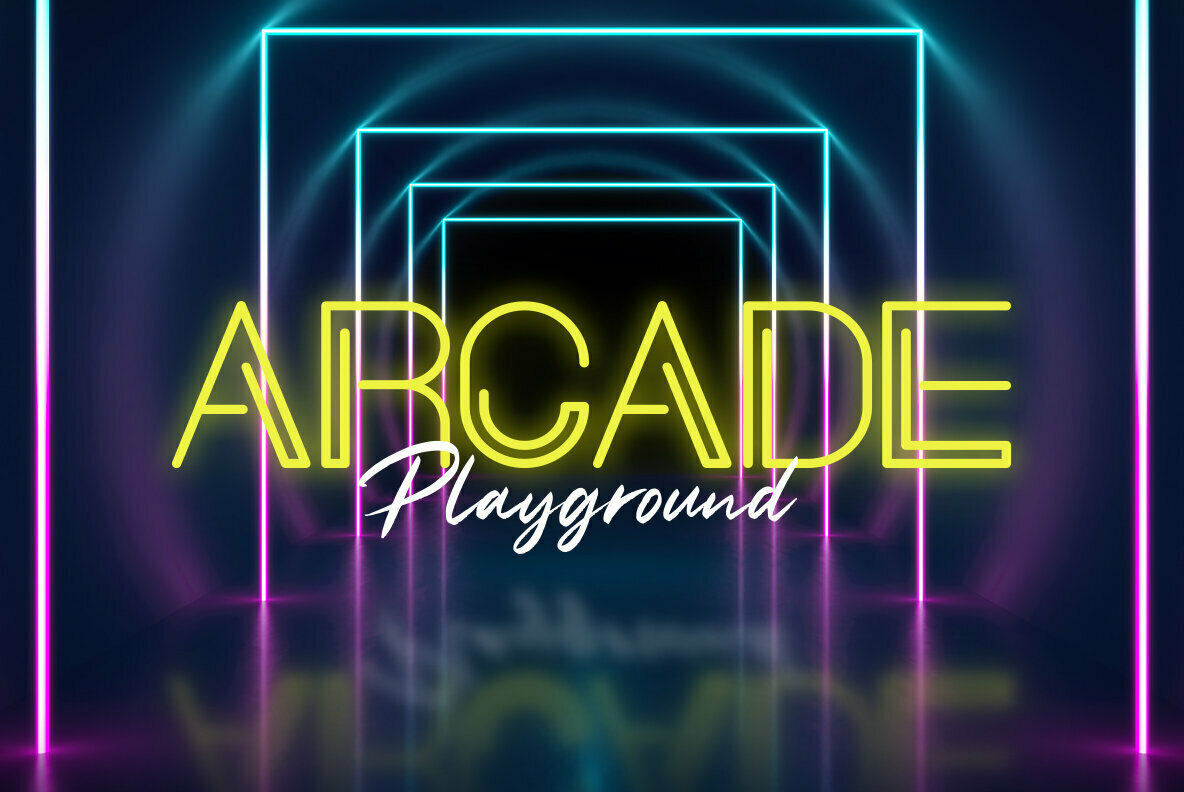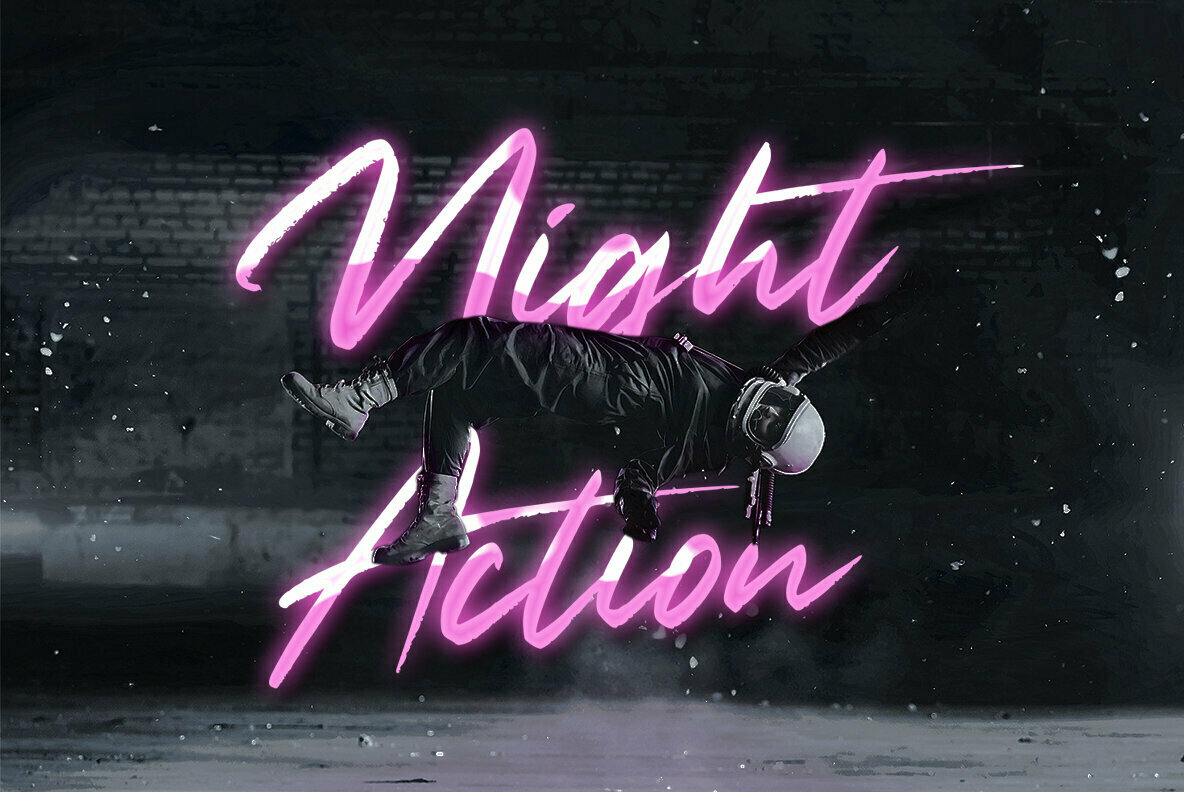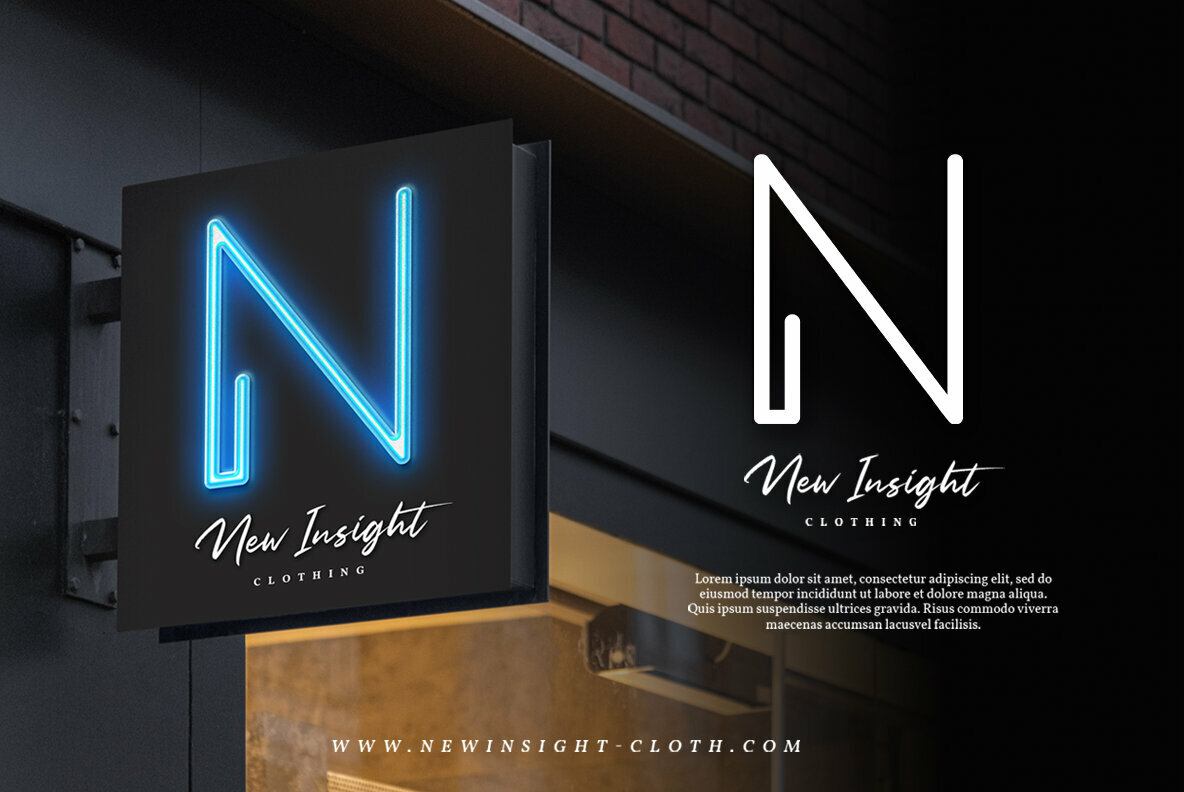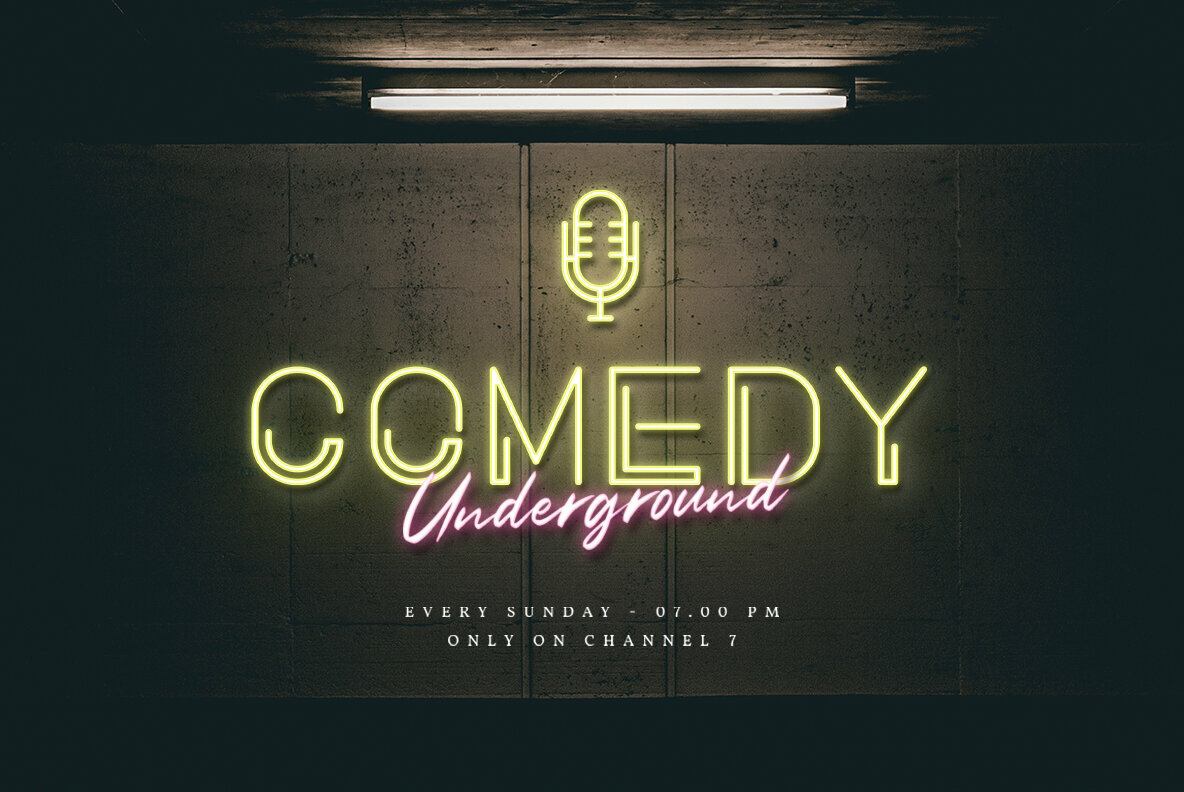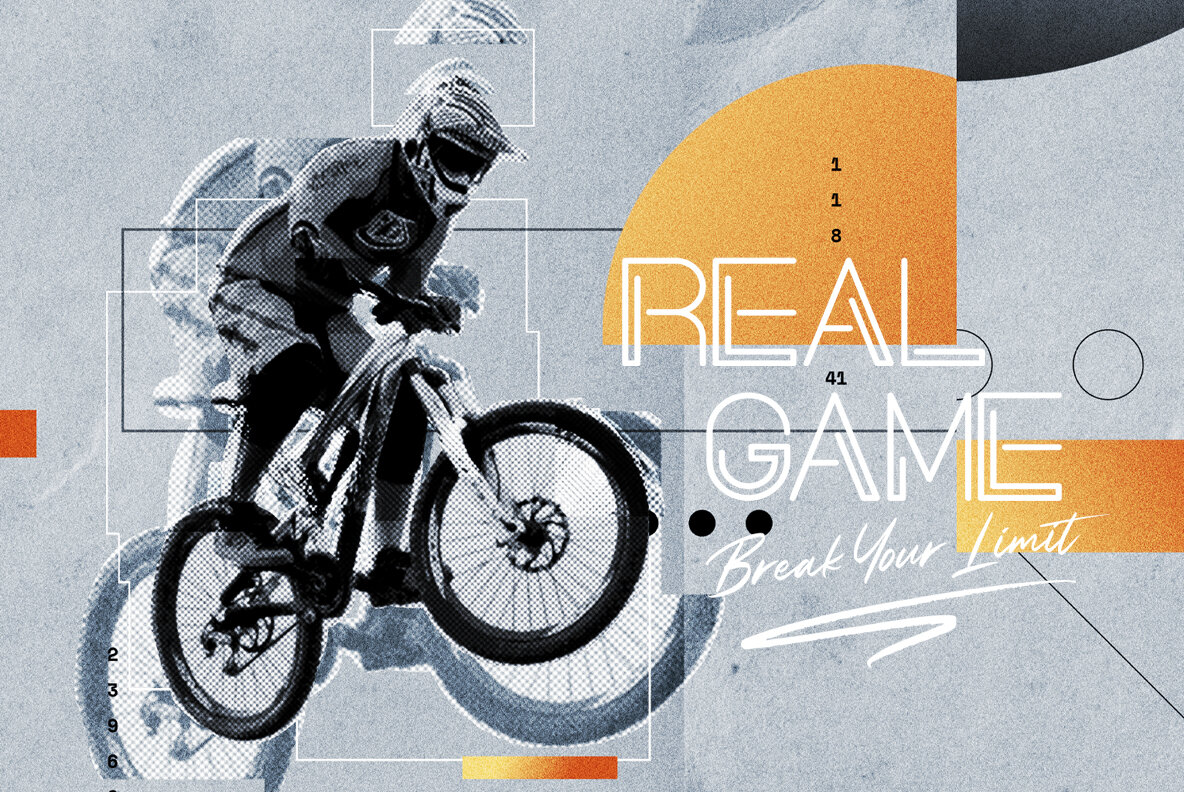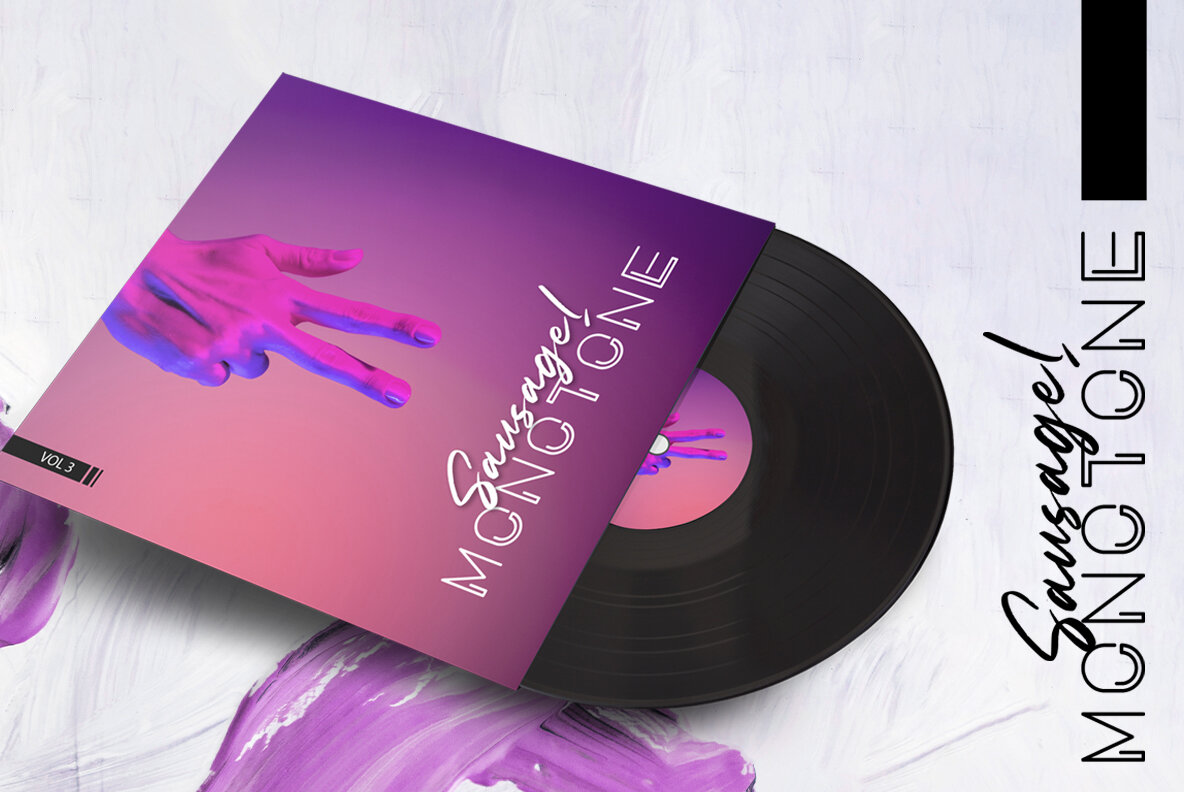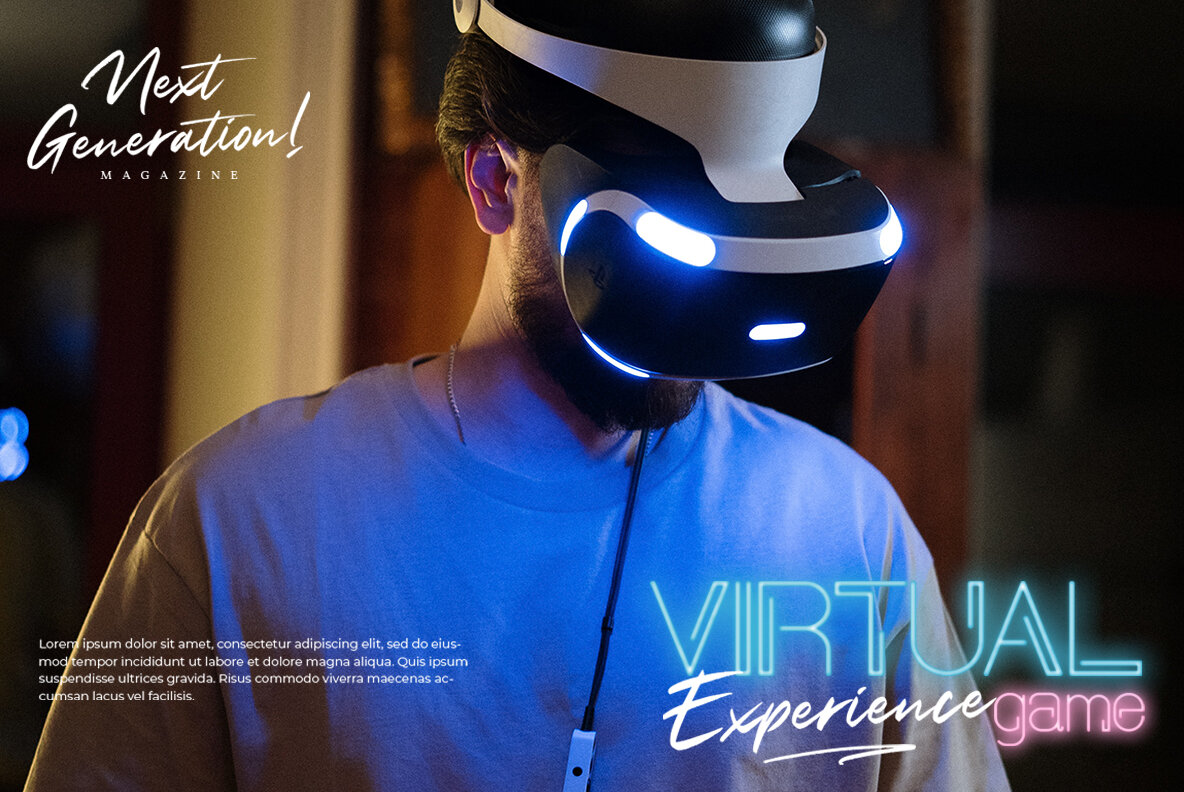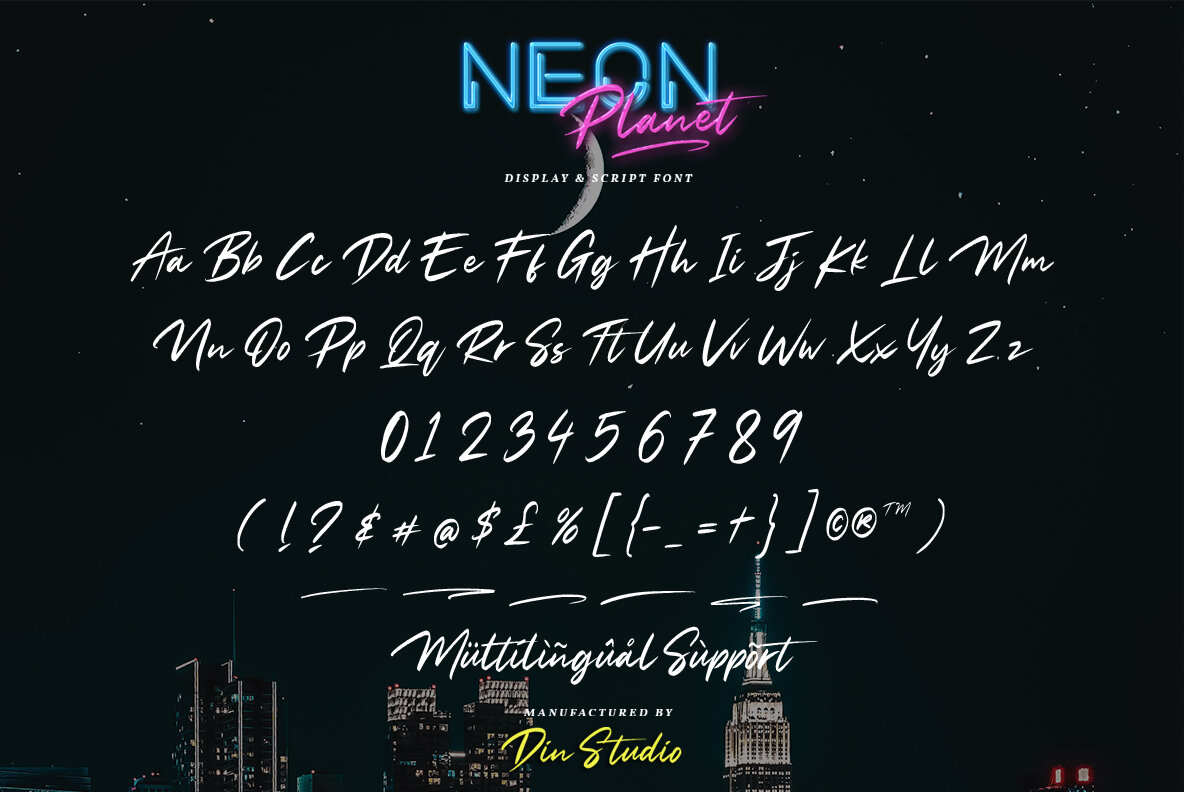
Neon Planet Font
Neon Planet by Din Studio merges modern aesthetics with a futuristic edge, presenting a unique font duo. The combination of vibrant neon shapes and brush-textured handwritten elements introduces a dynamic flair to your design projects. This font is particularly well-suited for endeavors seeking retro, modern, or casual vibes, offering you a vast playground for creativity.Neon Planet: Modern Futuristic Font Duo